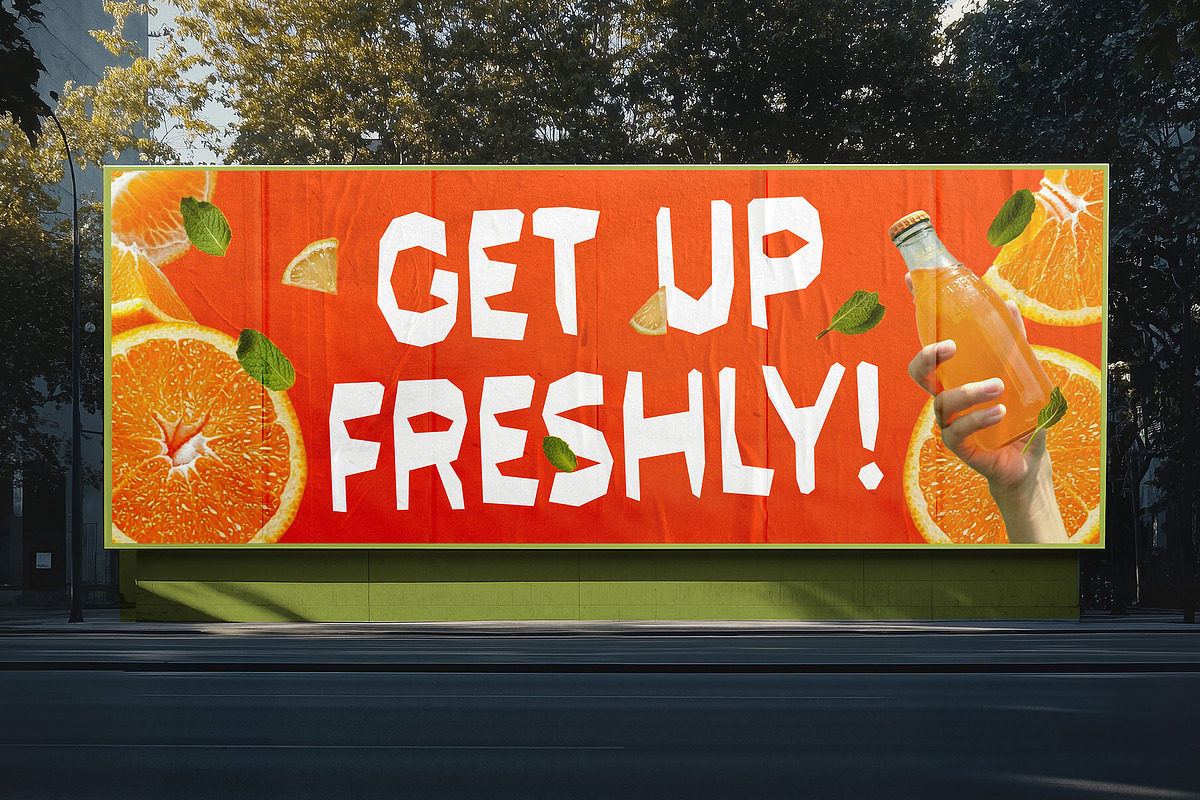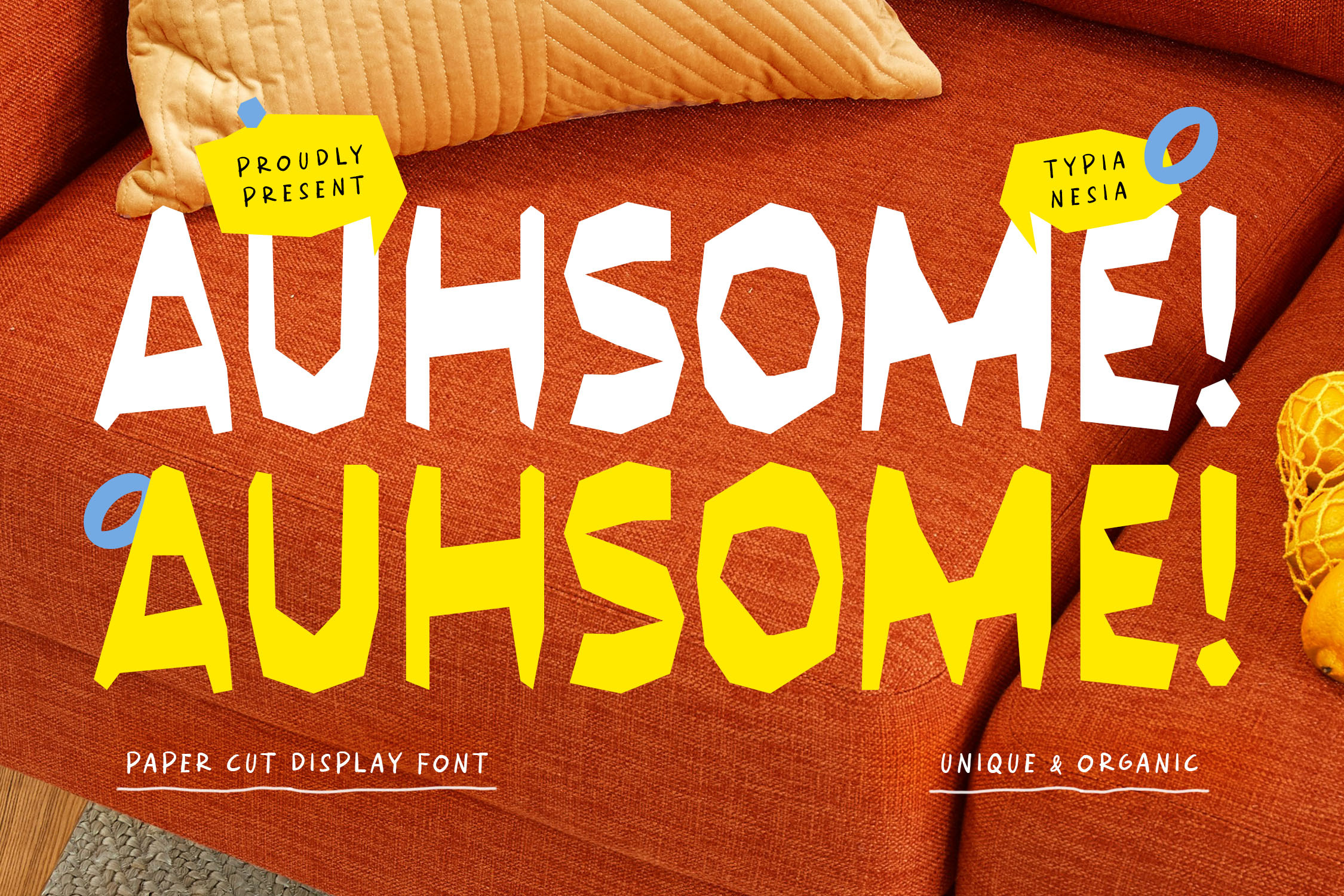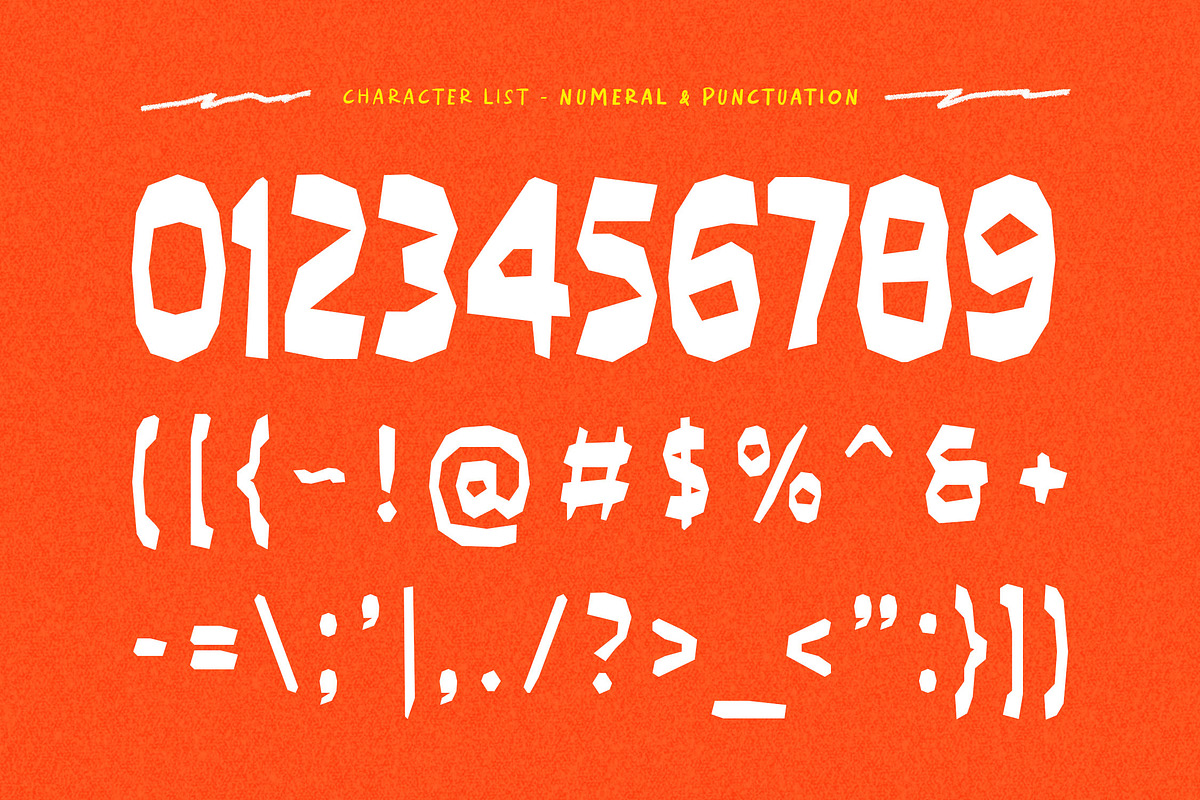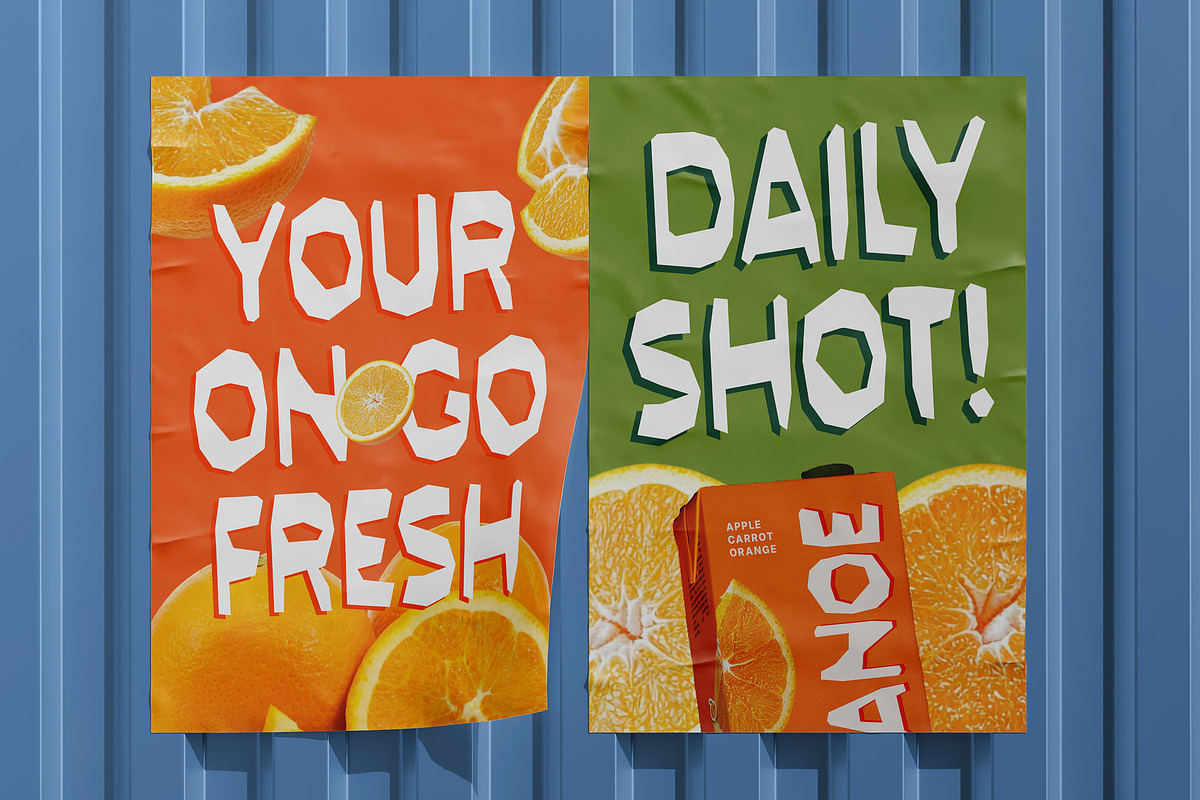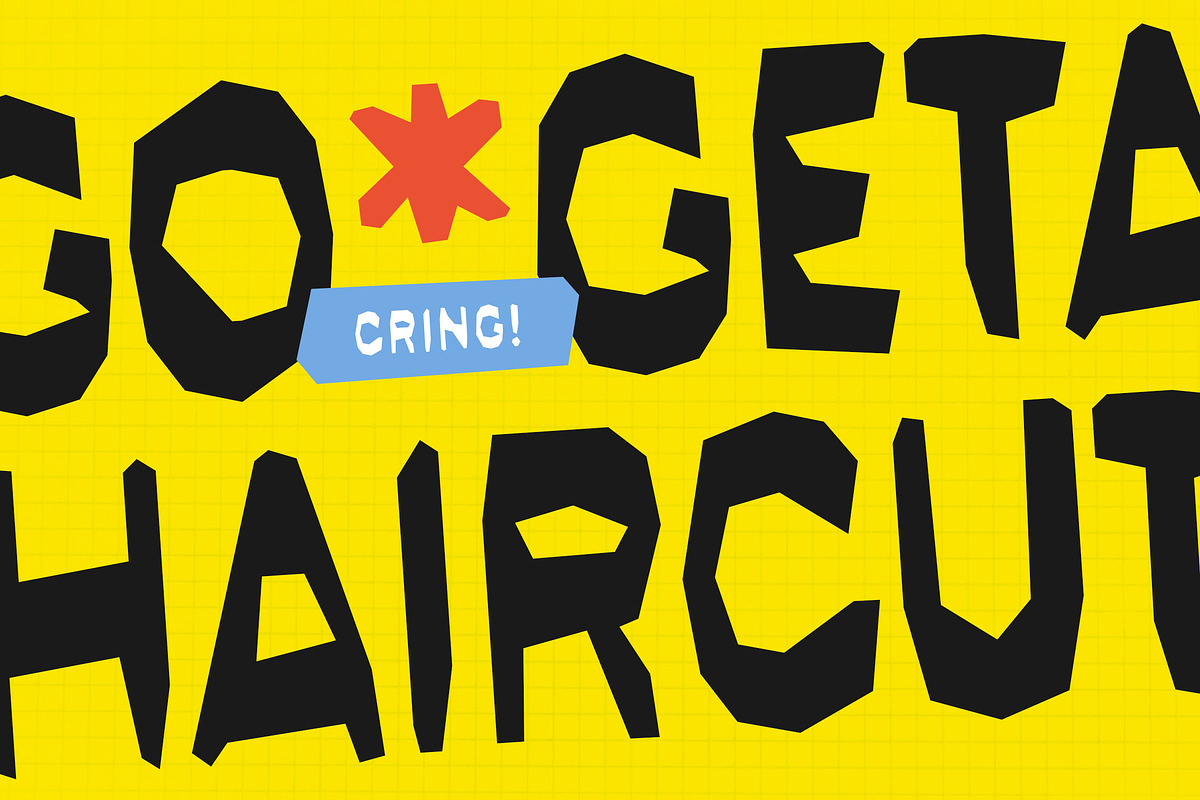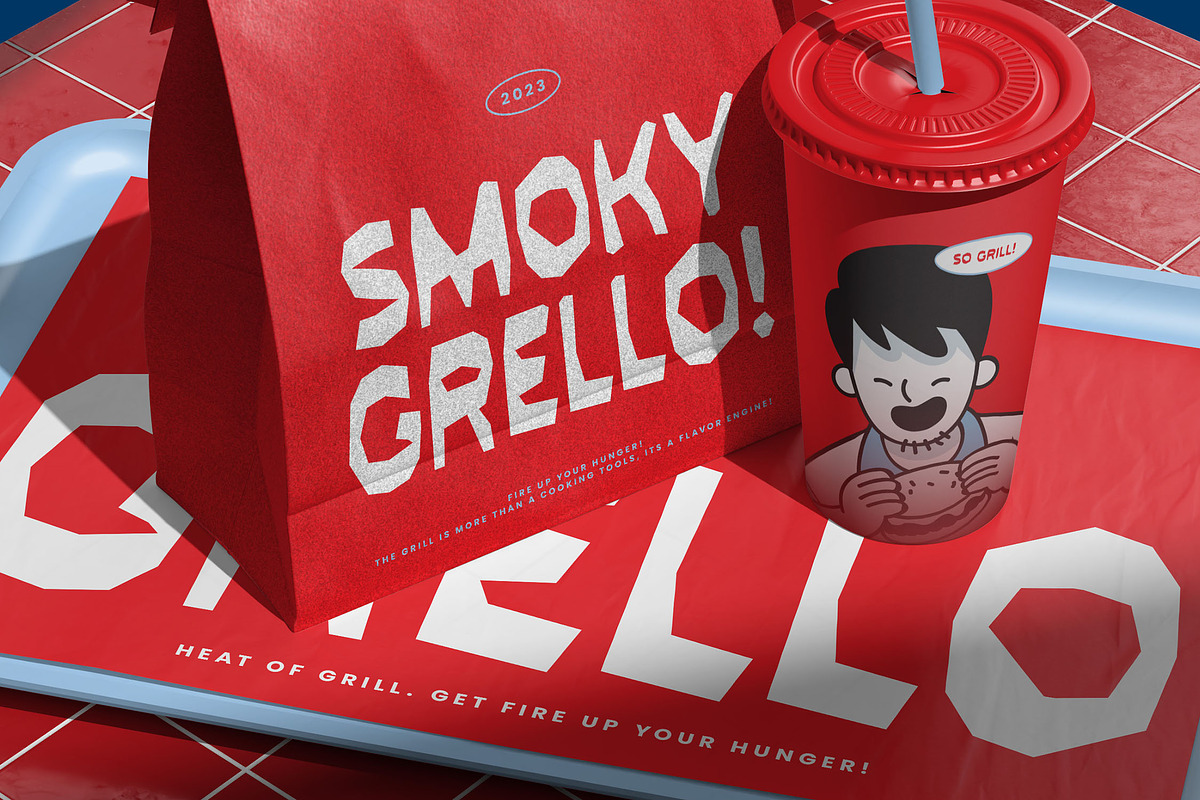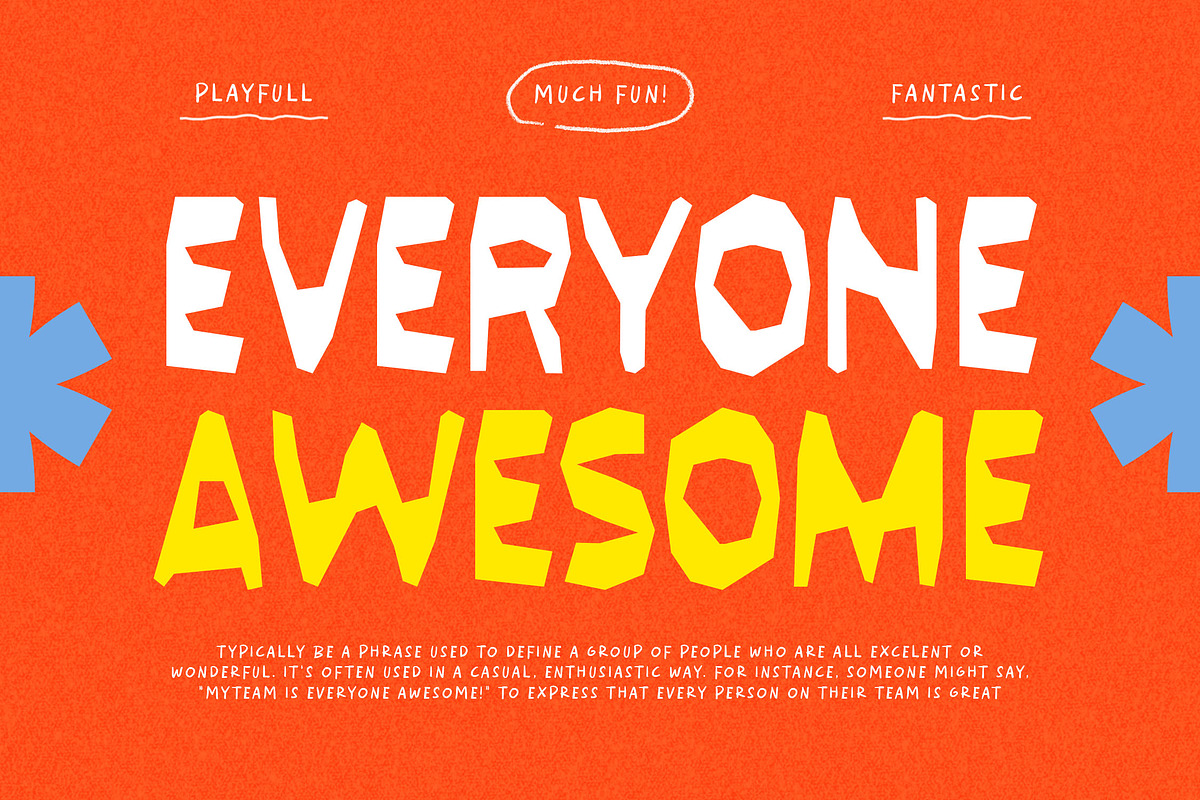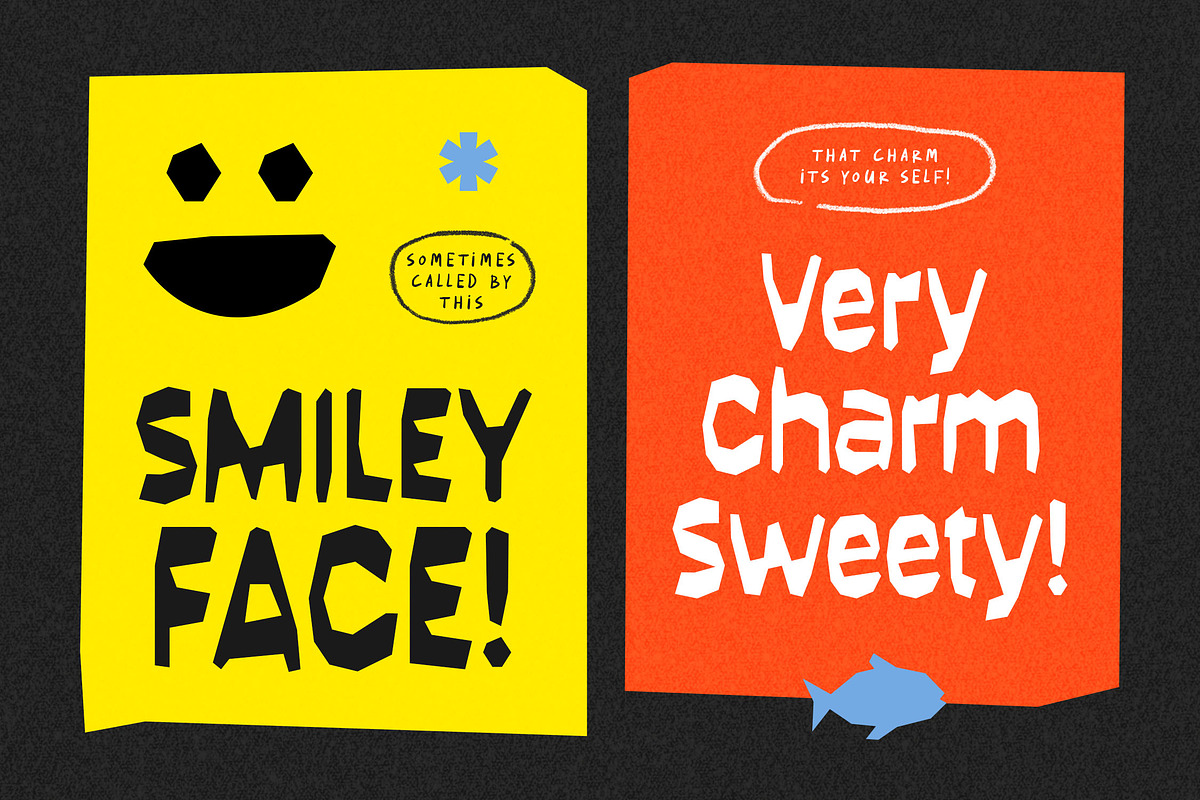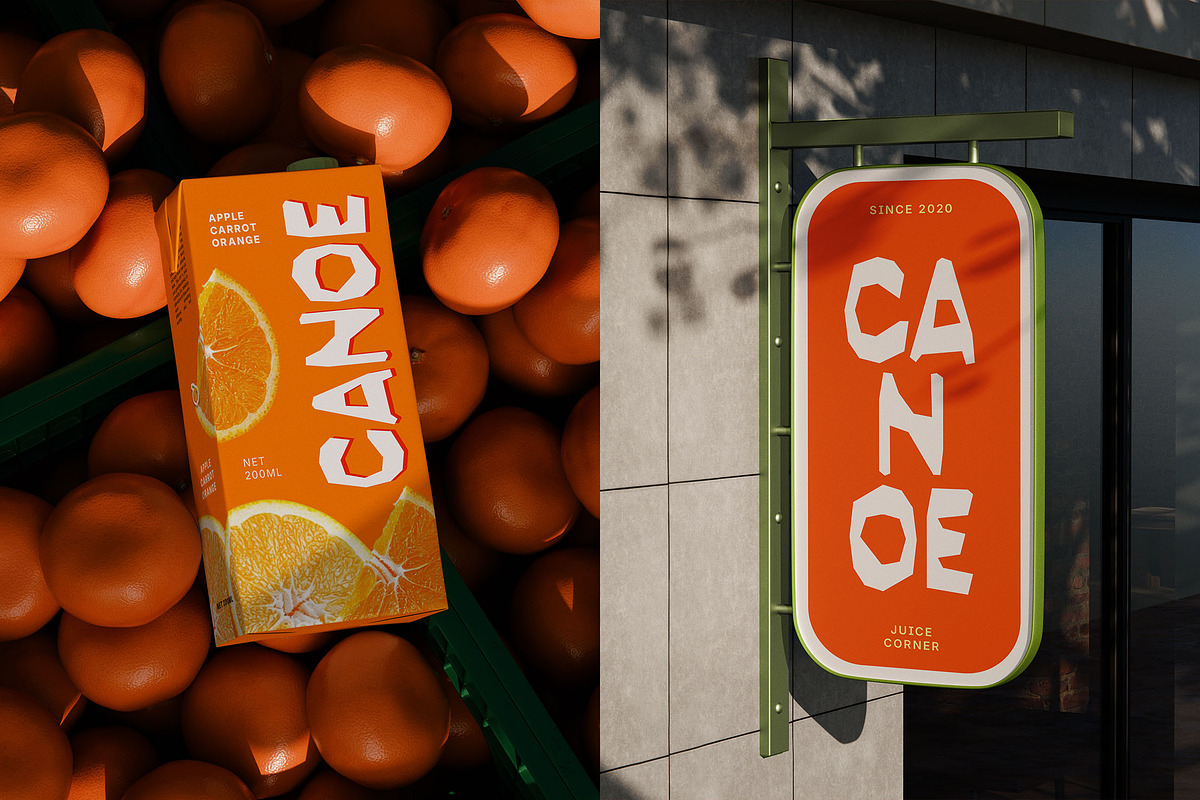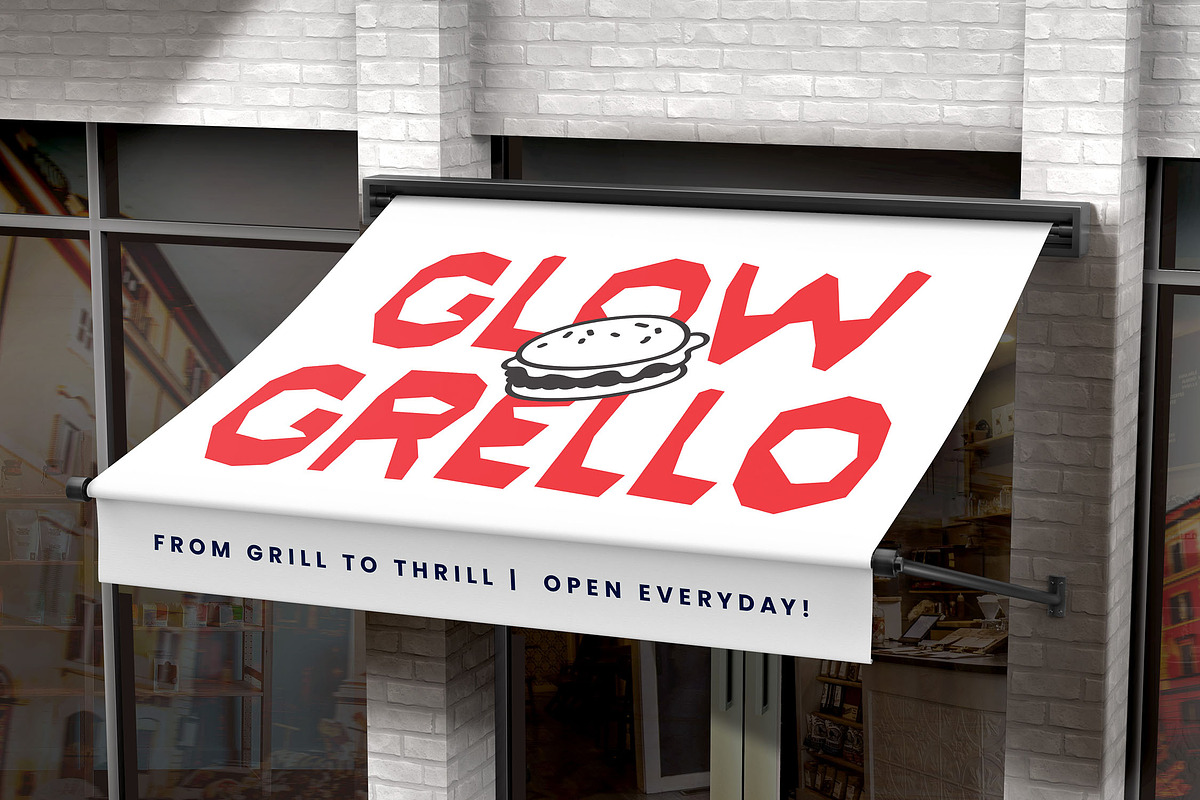
Auhsome - Papercut Craft Font
Auhsome - Paper Cutout / Papercut Craft Font - Modern Handcrafted Fun & Playful Organic Display Font
Auhsome is a unique and organic paper cut display font that was handcrafted to bring a funky and playful feel to all your projects. This font is perfect for headlines, branding, product packaging, beverage products, toys, or children's brands and other promotional materials that require a strong, cheerful, fresh, and distinctive message. With its irregular, cut-paper shape, Auhsome! highlights a handcrafted and creative touch. In addition to the main characters, this font also includes extra characters, numbers, and punctuation, and it supports multilingual use for a variety of languages. This font will help you create visuals that are unique and memorable.